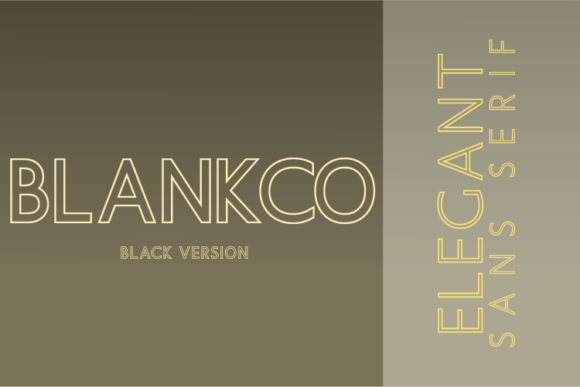
Enter Blankco Outline Black Font, a fresh and versatile sans-serif font designed to elevate your designs. With its big x-height value, geometrical letterforms, and sharp edges, Blankco Outline Black Font is the perfect choice for anything from magazines to branding and websites. Its neo-grotesk roots make it a valuable asset for designers looking to add a modern touch to their projects.
Key Features of Blankco Outline Black Font
- Font Family: Blankco Outline Black Font
- Unique Characteristic: Distinctive outline style with a sleek, modern aesthetic
- Style Variations: Regular, Bold, Italic, Bold Italic
Blankco Outline Black Font Review
Overall, I think the Blankco Outline Black Font has some great qualities that make it a solid choice for designers, but it also has some limitations that might hold it back from being a top-tier font.
- Great for creating a modern and sleek aesthetic
- Easy to read and understand, even at smaller font sizes
- Comes in a range of weights and styles, making it versatile and adaptable
- Can feel a bit generic and unoriginal at times
- Not ideal for creating bold, eye-catching headlines (sticks to a fairly neutral tone)
- May not be suitable for certain design styles or industries (e.g. children’s education or creative arts)
Overall, I think the Blankco Outline Black Font is a solid, middle-of-the-road choice for designers. It’s not going to blow anyone away with its unique qualities, but it’s reliable and gets the job done. If you’re looking for a font that’s easy to work with and fits a modern aesthetic, this might be a good choice. Just be aware of its limitations and consider whether it’s the right fit for your project.
Getting the Most Out of Blankco Outline Black Font
- Use it in combination with other bold fonts for a striking visual effect
- Experiment with different font sizes and styles to create a unique look
- Use it for headings and titles to add a touch of sophistication
Blankco Outline Black Font is ideal for:
Alternatives to Blankco Outline Black Font for Designers
Great Vibes Font is a modern, elegant script font that is perfect for creating a luxurious and sophisticated look. It’s ideal for use in branding, advertising, and editorial design.
Compared to Blankco Outline Black Font, Great Vibes Font has a more refined and polished look, making it suitable for high-end designs. However, it lacks the edgy, bold feel of Blankco Outline Black Font.
2. Museo Sans Font
Museo Sans Font is a sleek, sans-serif font that is ideal for use in digital design, such as websites and mobile apps. It’s also suitable for print designs that require a clean and modern look.
Museo Sans Font has a more geometric and minimalist look compared to Blankco Outline Black Font, making it suitable for designs that require a clean and simple aesthetic. However, it may lack the boldness and character of Blankco Outline Black Font.
3. Playfair Display Font
Playfair Display Font is a luxurious, high-end font that is perfect for use in branding, advertising, and editorial design. It’s ideal for creating a sophisticated and elegant look.
Compared to Blankco Outline Black Font, Playfair Display Font has a more refined and elegant look, making it suitable for high-end designs. However, it may lack the boldness and edginess of Blankco Outline Black Font.